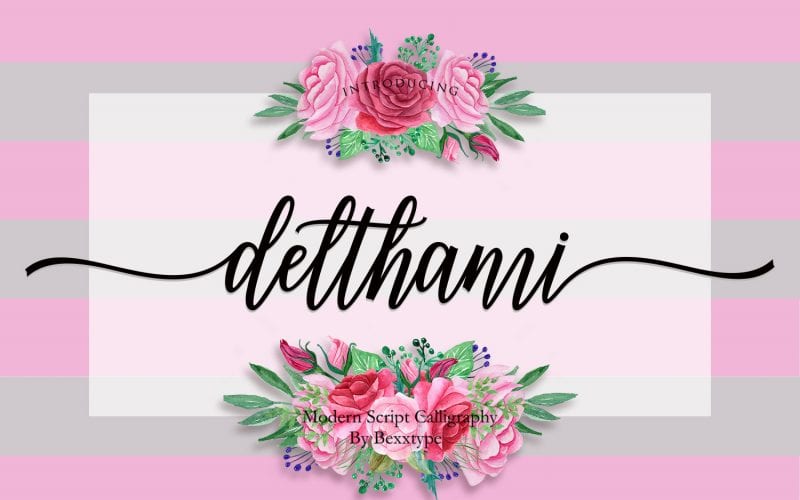
Delthami Script a new fresh & modern script with a handmade calligraphy style, decorative characters and a dancing baseline!
So beautiful on invitation like greeting cards, branding materials, business cards, quotes, posters, and more!!
Delthami Script come with 704 glyphs. The alternative characters were divided into several Open Type features such as Swash, Stylistic Sets, Stylistic Alternates, Contextual Alternates.